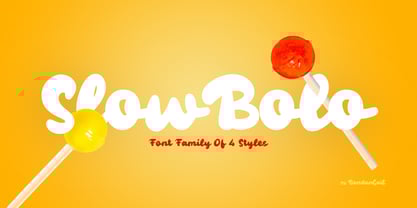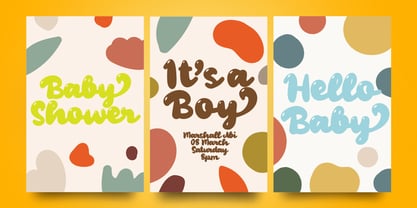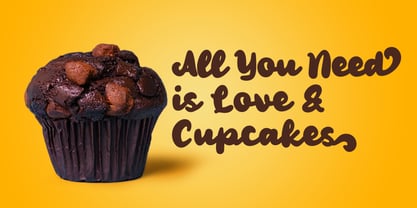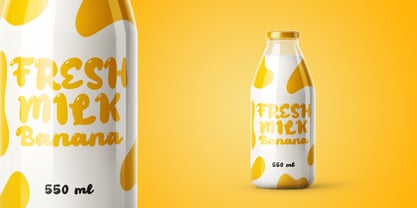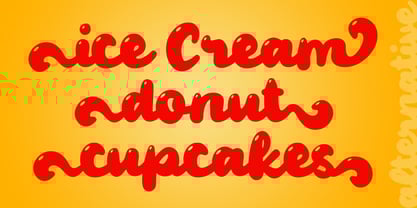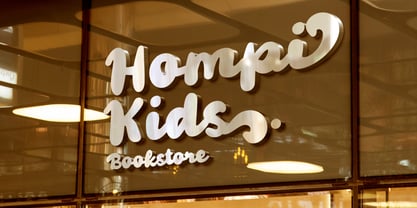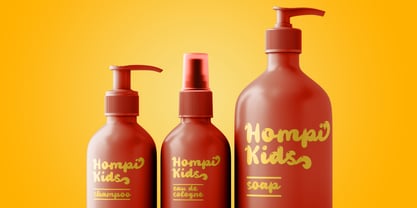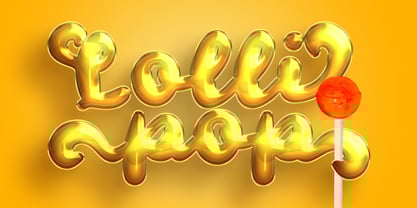
Slow Bolo
by BondanGail
The Slow Bolo Font Family was designed by Wahyu Eka Prasetya, Bondan Gail Saputro and published by BondanGail. Slow Bolo contains 4 styles and family package options.
Slowbolo concept is a playful and eye-catching display typeface characterized by its thick, rounded strokes and exaggerated curves. The absence of serifs and the uniform stroke thickness give it a modern yet retro feel, reminiscent of 1960s or 70s typography. Its soft, bubbly appearance is further enhanced by rounded terminals and smooth, connecting strokes between letters, creating a sense of fluidity and unity.
Well-suited for branding and design projects that aim to evoke a sense of fun and nostalgia, this typeface would be ideal for food-related businesses like ice cream parlors and bakeries, children's products, party invitations, and retro-themed advertisements. The font's friendly and approachable demeanor, combined with its bold visual presence, makes it an excellent choice for capturing attention and conveying a sense of joy and whimsy.